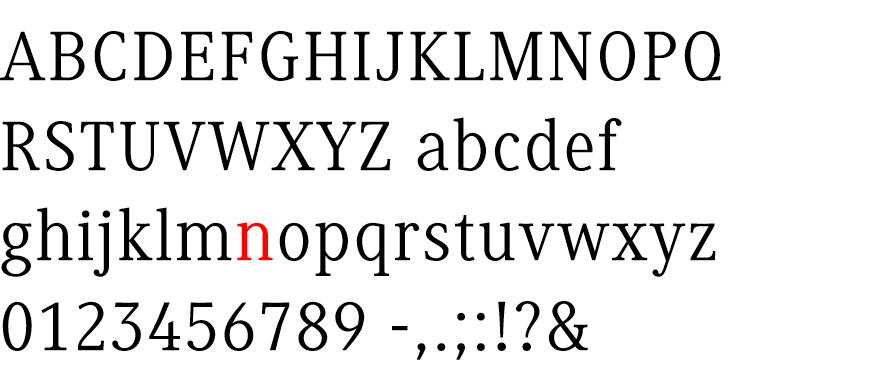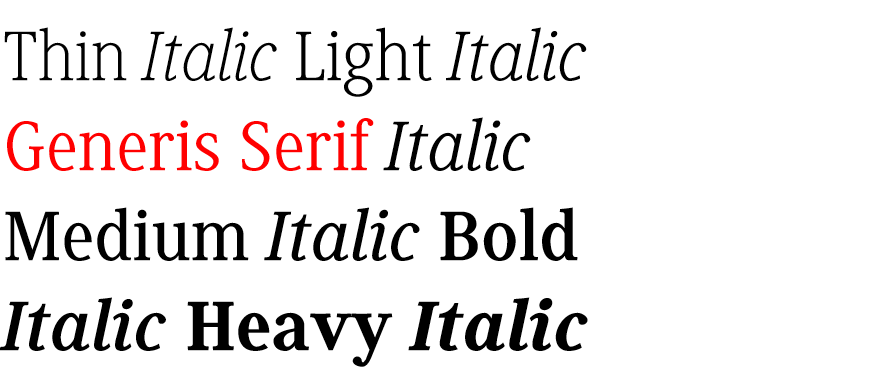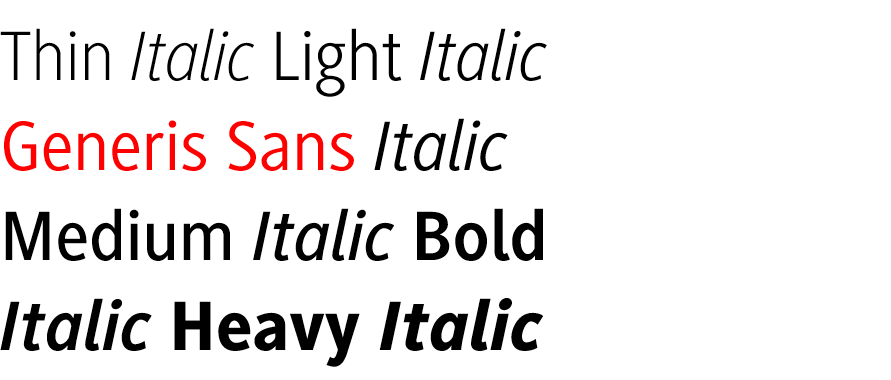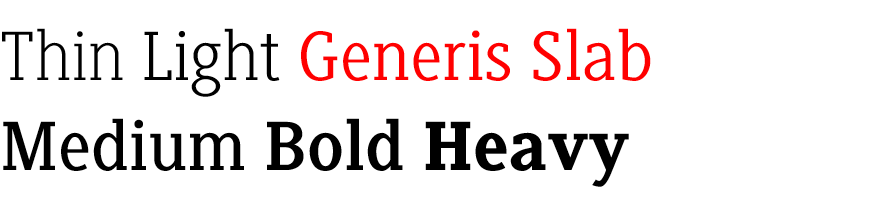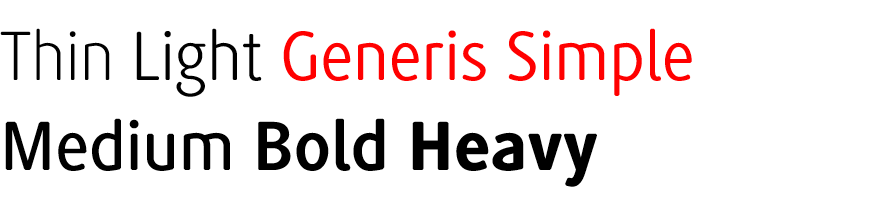
Erik Faulhaber
Generis
Interrelated font system with unified basic form.
High-quality shapes through carefully designed details.
Inspired by the early space-saving sans-serif style.
The lack of spurs on stems of Simple gives a clear shape
Genuine small caps of Serif, Sans and Slab have the same line weight.
Old style numerals of of Serif, Sans and Slab help animate typography.
Lowercase l of Sans and Simple is shaped for public signage
Four styles, six weights and italics.